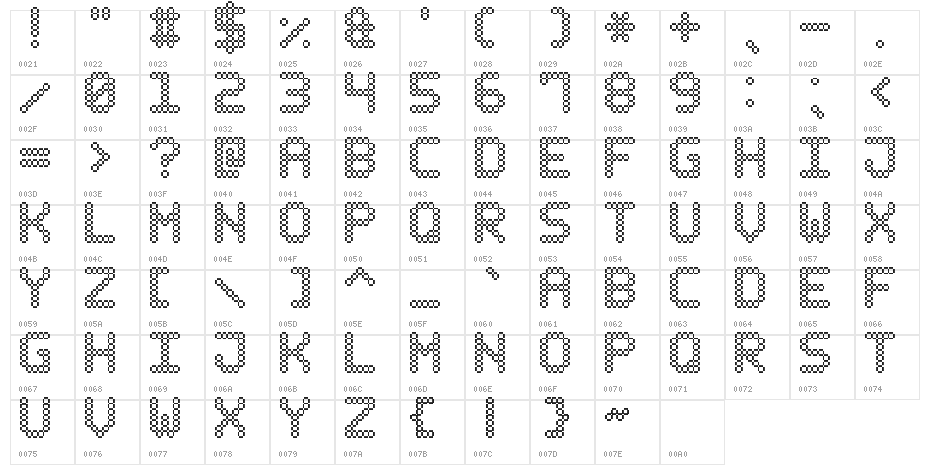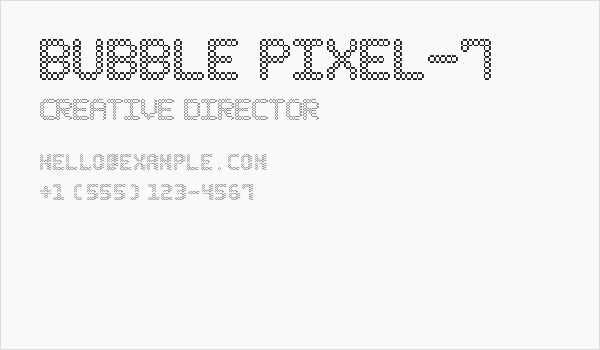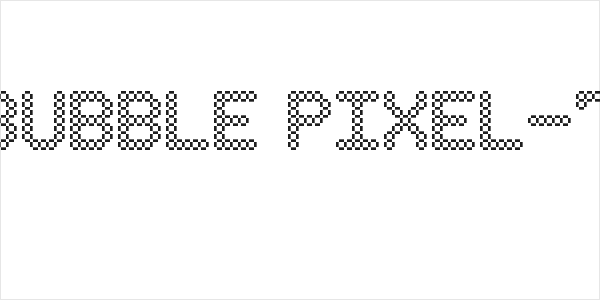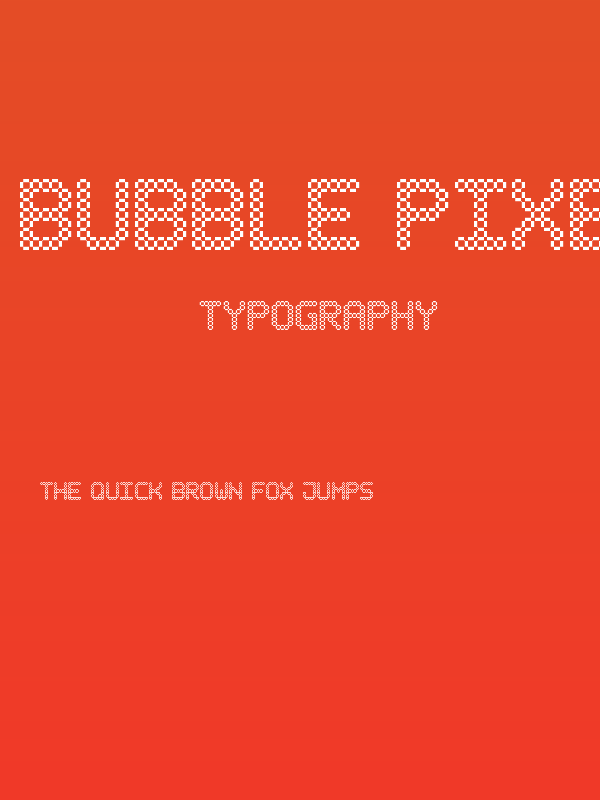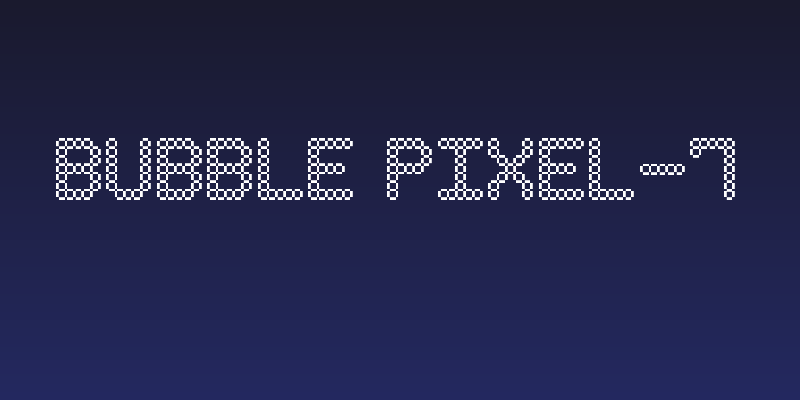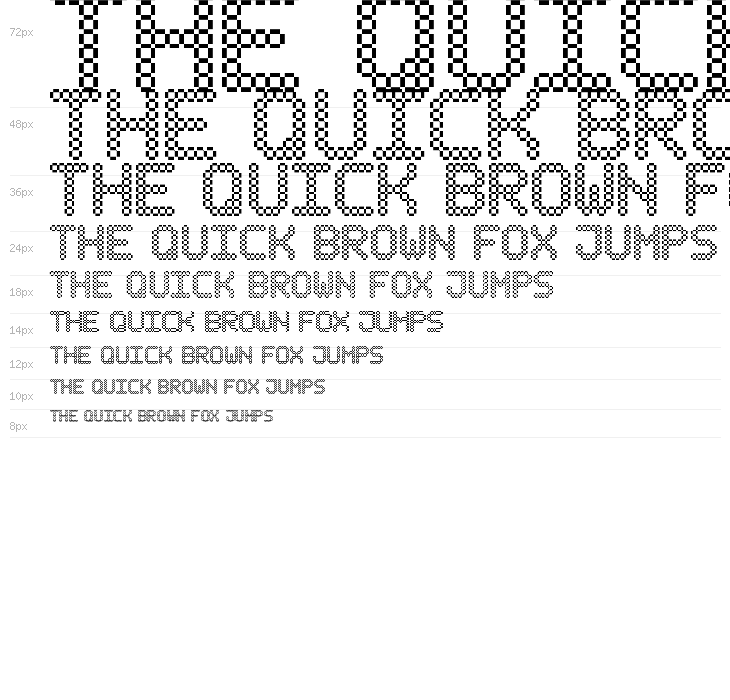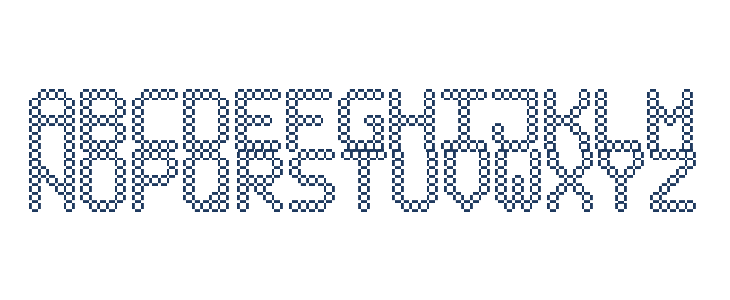
Bubble Pixel-7 Font
Bubble Pixel-7 Description
This font features a unique and playful design, characterized by its pixelated, bubble-like appearance. Each character is composed of small, rounded dots that form the shape of letters and numbers, giving it a retro digital feel. The font maintains a consistent structure across uppercase, lowercase, and numerical characters, ensuring readability while adding a touch of whimsy. Its distinct style makes it stand out, ideal for projects that require a fun and engaging visual element. The spacing between characters is uniform, contributing to its clean and organized look.
| Overall Style | Retro, Playful |
| Use Case | Logos, Headlines, Digital Art |
| Proposed Projects | Ideal for video game graphics, children's books, playful branding, and digital art projects. |